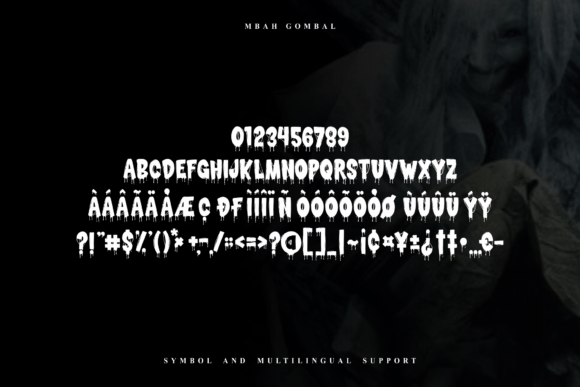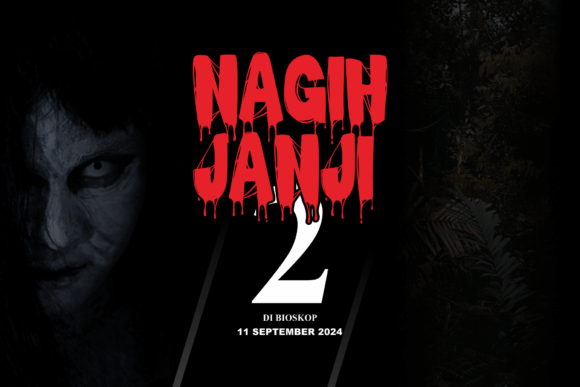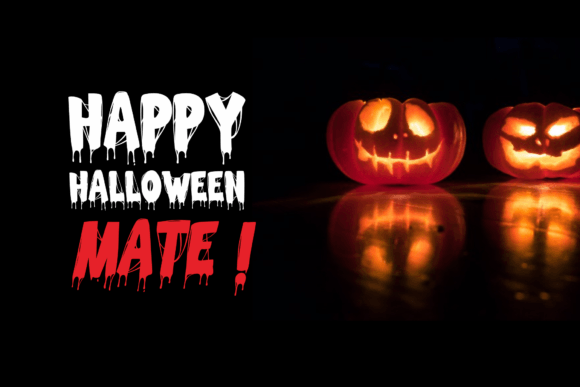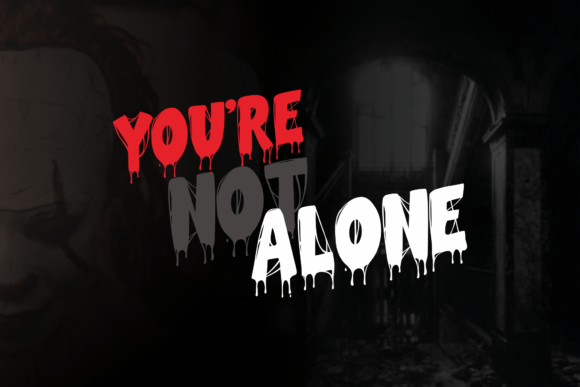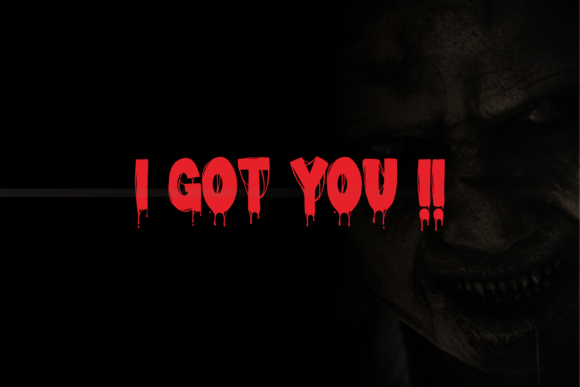
Introduction to Mbah Gombal Font
Do you remember that moment when you stumbled upon a font that perfectly captured the essence of your creative vision? For many designers, that moment is what makes all the late nights and early mornings worth it. I had one of those moments when I discovered the Mbah Gombal Font, a hauntingly beautiful display font that’s as versatile as it is eerie.
For designers, the value of the Mbah Gombal Font lies in its ability to elevate even the most mundane projects into something truly unforgettable. Its unique style and macabre appeal make it a valuable asset for anyone looking to push the boundaries of their creativity.
Key Features of Mbah Gombal Font
- Unique and Creative Design: Mbah Gombal Font offers a distinctive and creative design perfect for various design projects, including logos, branding, and packaging.
- High-Quality Font: This font is designed with high-quality vectors, ensuring a crisp and clear appearance even at large sizes.
- Transparent Background: Mbah Gombal Font features a transparent background, allowing designers to easily layer it over other design elements.
- High Resolution: This font is designed at a high resolution (300 DPI), making it suitable for use in print materials and other high-resolution applications.
- Perfect for Design Projects: Mbah Gombal Font is an ideal design resource for designers working on creative projects, including branding, logos, and packaging.
Honest Review: Mbah Gombal Font
I recently had the opportunity to work with the Mbah Gombal Font, and I must say it’s been a great addition to my design resources. This font is a beautiful, high-quality design element that can elevate any creative project.
What works well: ✨ The Mbah Gombal Font is incredibly versatile and can be used in a variety of contexts, from modern logos to traditional text-based designs. Its transparent background makes it easy to layer with other design elements, and its unique aesthetic adds a touch of sophistication to any project.
Some of the key features that I appreciate include:
- High-quality design that’s perfect for print or digital projects
- Transparent background allows for easy layering with other design elements
Limitations: ⚠️ While the Mbah Gombal Font is a great design resource, I do wish it came in a wider range of weights and styles. This would make it even more versatile and useful for a wider range of design projects.
Mbah Gombal Font
The Mbah Gombal Font is a high-quality design resource perfect for creative projects that require a unique and eye-catching touch. With its transparent background, this font can be easily integrated into various design platforms.
For more advanced design projects, use the Mbah Gombal Font in Adobe Photoshop or Illustrator. This font’s high quality makes it ideal for creating intricate designs and graphics.
Add a professional touch to your presentations and documents with the Mbah Gombal Font in PowerPoint or Word. Its unique design is sure to grab attention and leave a lasting impression.
To get the most out of the Mbah Gombal Font, experiment with different font sizes, colors, and styles to create a visually appealing design. Don’t be afraid to mix and match with other design elements to create a truly unique look.
The Mbah Gombal Font is perfect for various creative projects, including graphic design, digital art, and even web design. Its high-quality design makes it an excellent choice for logos, posters, and other visual materials.